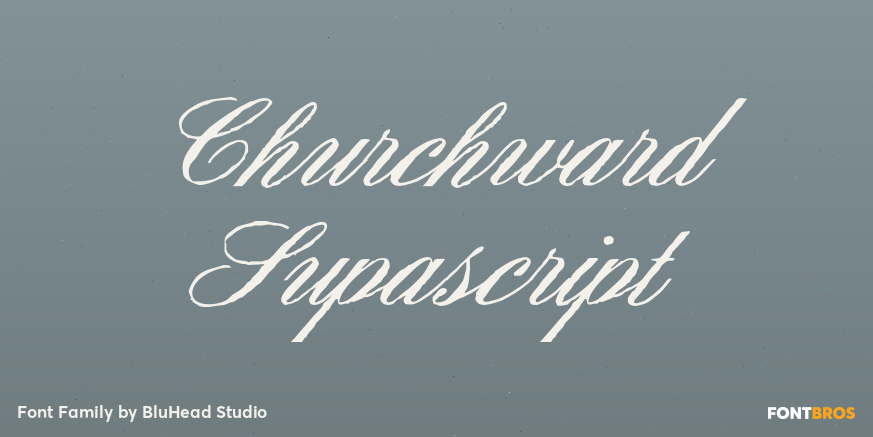
Churchward Supascript
About Churchward Supascript
Churchward Supascript is a new OpenType font release by BluHead Studio from the exciting and unique type design library of Joseph Churchward. The design is based upon Churchward\’s original Supascript drawings but with a little added edginess in the form…